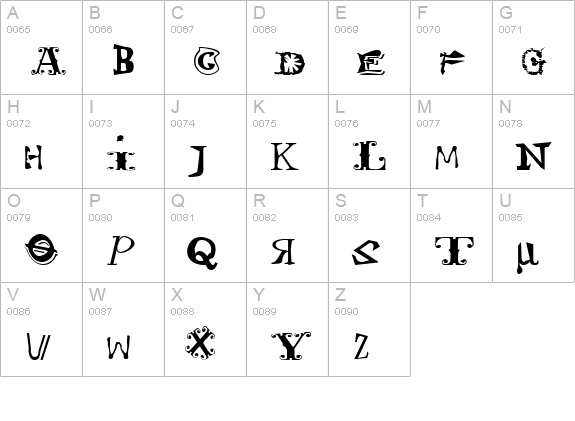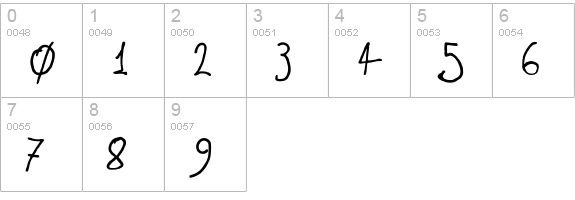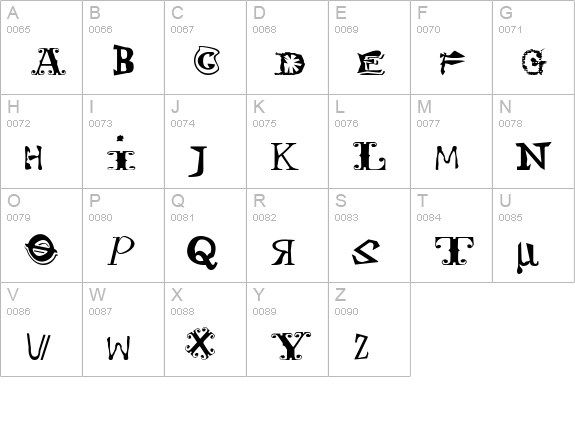
KitschLiebe Font Details
KitschLiebe is a delightful and whimsical font that captures the essence of nostalgia and kitsch. With its playful curves and charming letterforms, this font is perfect for adding a touch of fun to any design project. Whether you're creating a retro-inspired poster, a quirky logo, or a whimsical greeting card, KitschLiebe is sure to bring a smile to your face. What sets KitschLiebe apart is not only its unique design but also the fact that it is free. That's right, this delightful font is freely available to download at FontsMarket.com. Now, you can add a touch of whimsy to your designs without breaking the bank. Whether you're a professional designer or a hobbyist, KitschLiebe is a font that will surely find its way into your collection. The versatility of KitschLiebe is another standout feature. With its wide range of characters and ligatures, you can easily create eye-catching headlines, captivating logos, and delightful typography that will make your designs stand out from the crowd. The font is also available in various weights, allowing you to experiment with different styles and create a truly personalized look. So, don't miss out on this opportunity to add a touch of kitsch to your designs. Download KitschLiebe for free at FontsMarket.com and let your imagination run wild. Whether you're aiming for a retro vibe, a whimsical feel, or simply want to inject some fun into your projects, KitschLiebe is the perfect font to bring your creative vision to life. So go ahead, embrace the playful side of design and let KitschLiebe be your go-to font for all things kitschy and delightful.